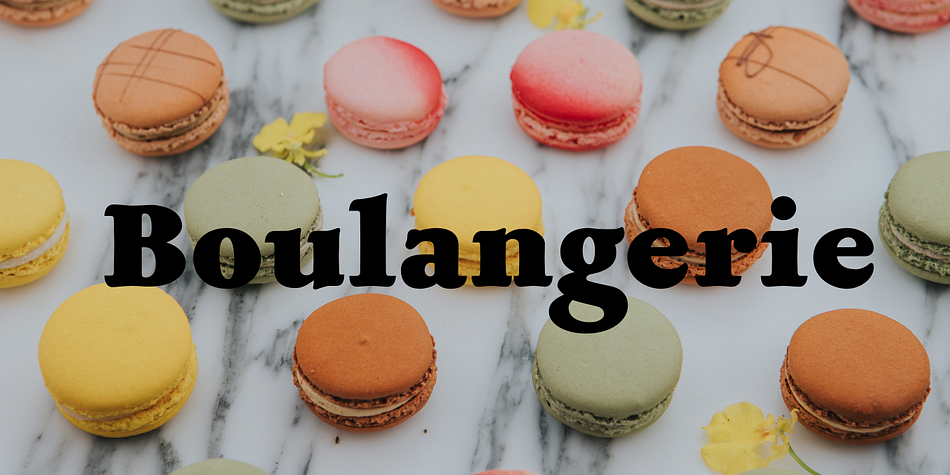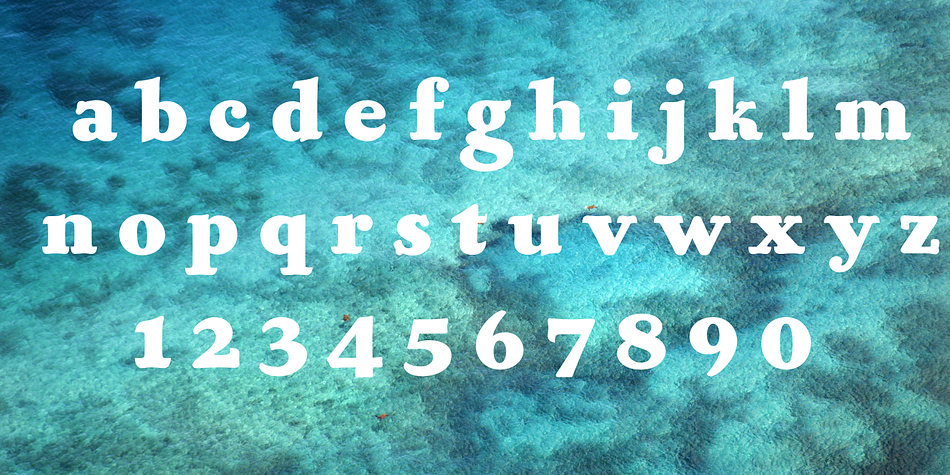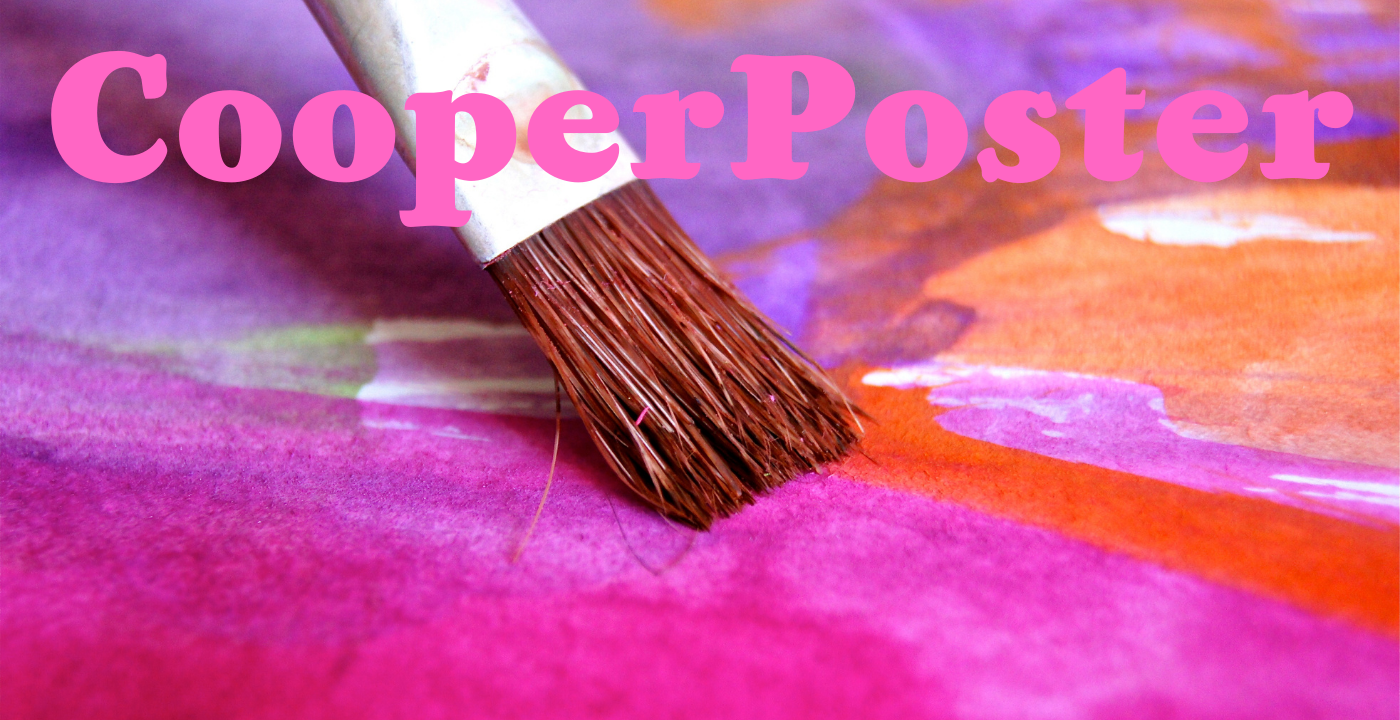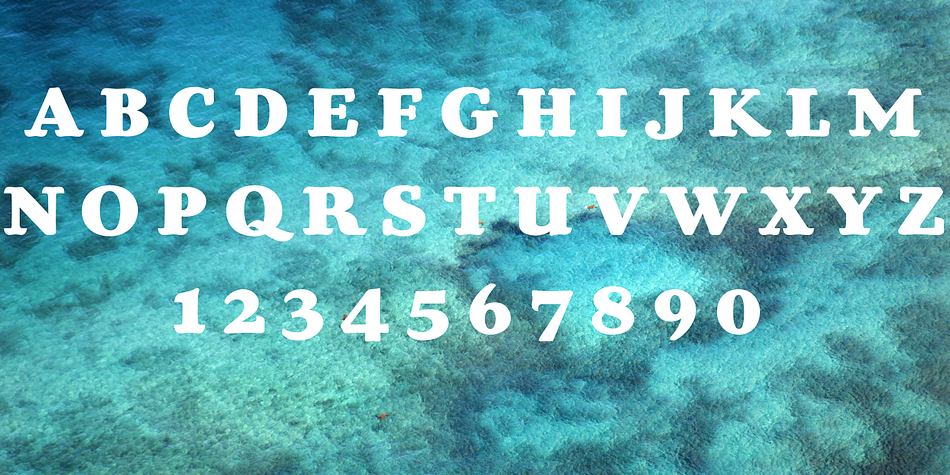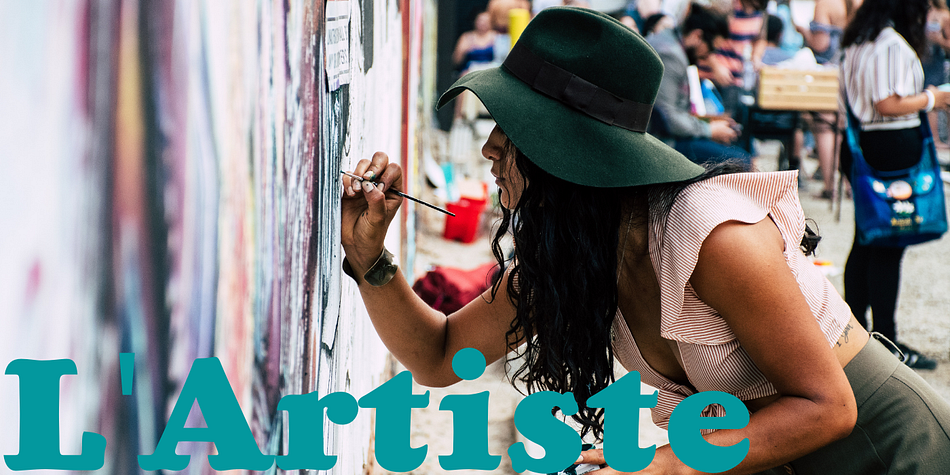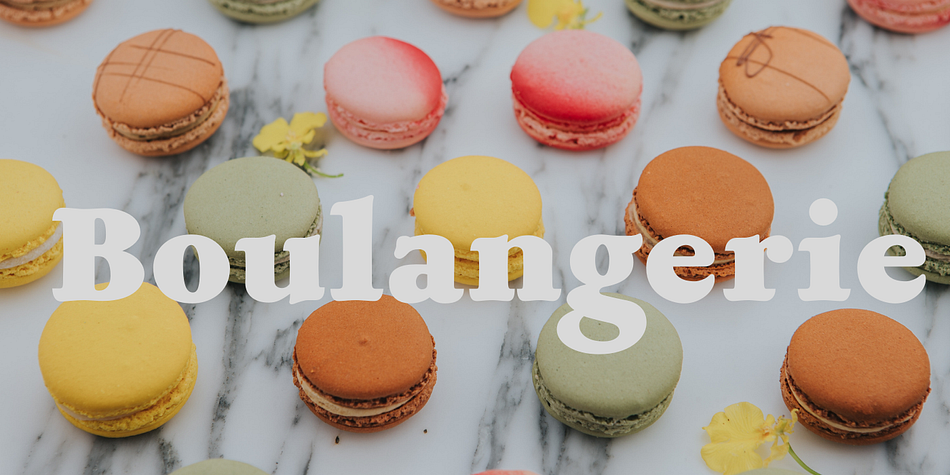
Cooper Poster
Cooper Poster is a retro and serif font published by FontHaus.
Cooper Poster was inspired by showcard lettering samples featured in the book, Commercial Art Of Show Card Lettering, published in 1945. Although named ““Western”“, the design was modeled after Ozwald Cooper’s 1921 original Cooper Black.